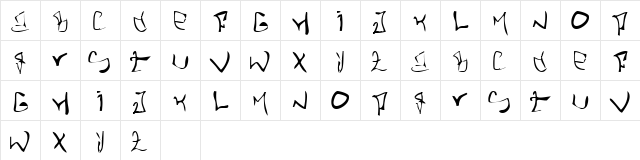
Sthlm graffiti s Free Font
Sthlm graffiti s
Style: s
Design Context for Sthlm graffiti
Sthlm graffiti is a composed and adaptable typeface that performs quietly and consistently across a wide range of design contexts.